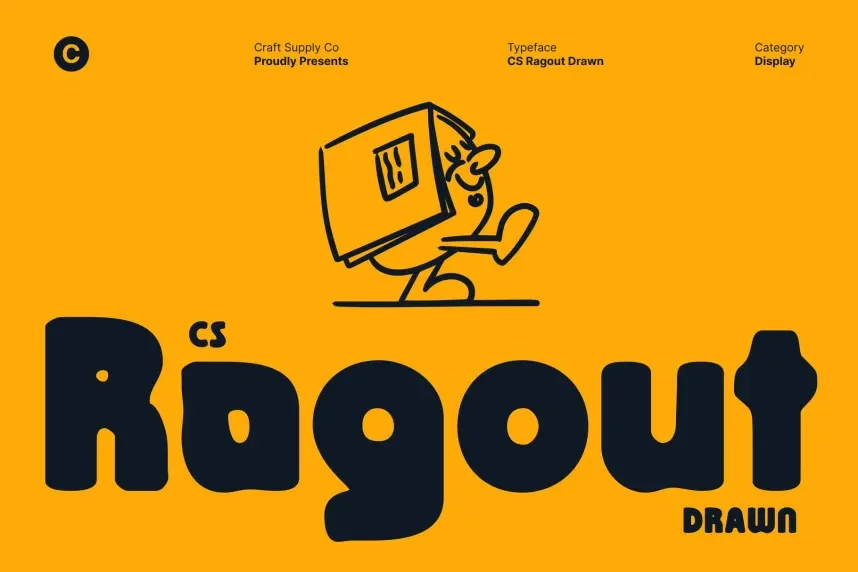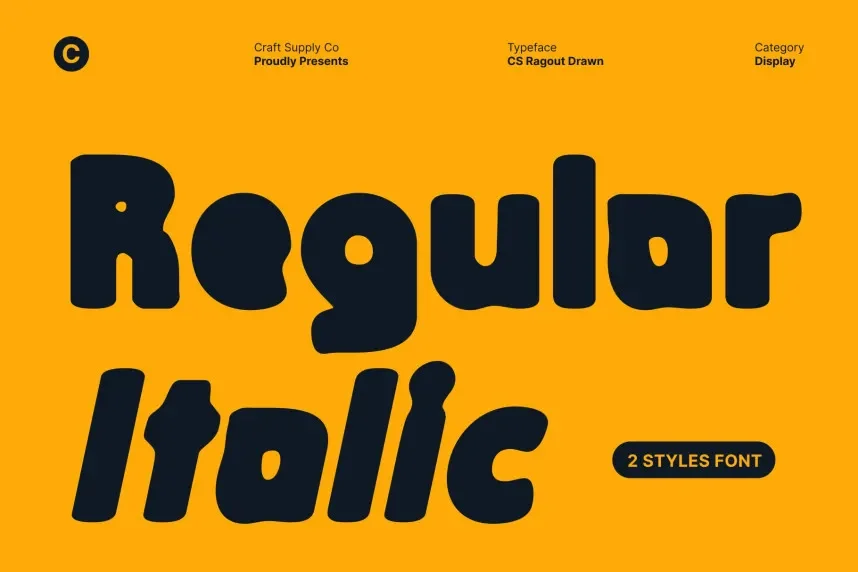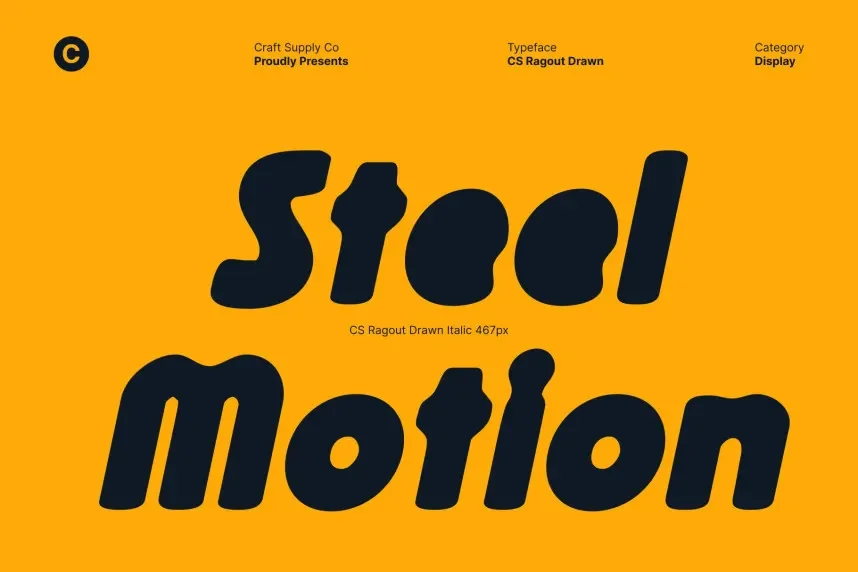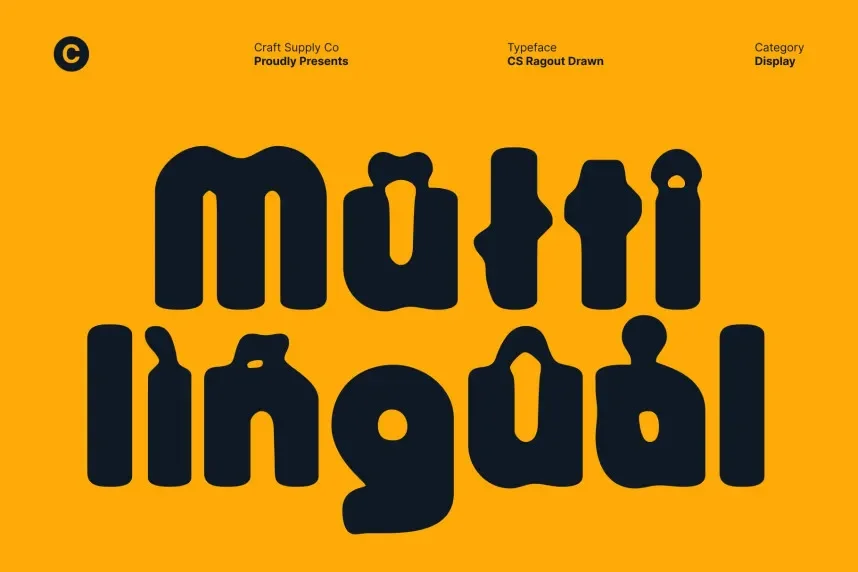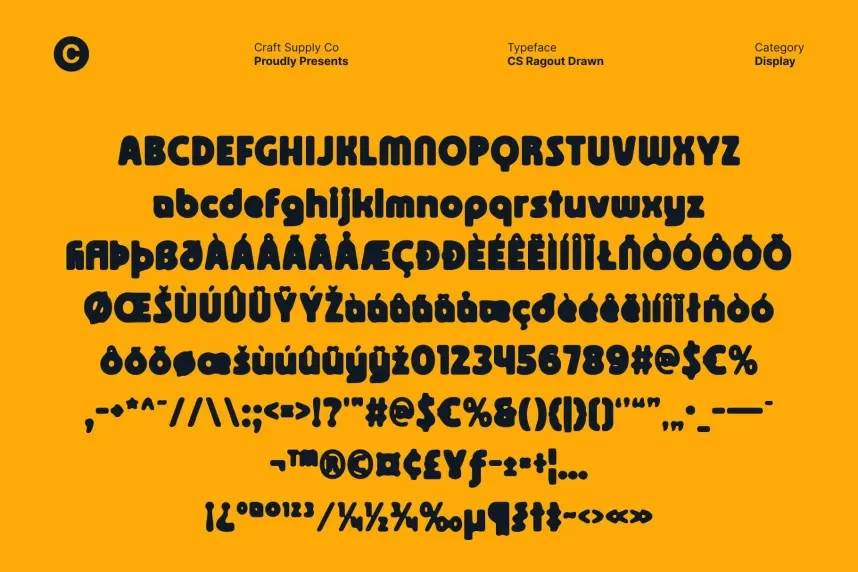
CS Ragout Drawn Font is a quirky, hand-drawn typeface with a distinct personality. Its irregular shapes and uneven stroke widths make it perfect for projects that need a bold, artistic touch, such as logos, posters, and creative branding.
Best used for event posters, branding, and product packaging, CS Ragout Drawn Font pairs well with simpler sans-serif fonts for contrast. Available in TTF and OTF formats, it includes a commercial-use license. Always verify licensing before commercial use.